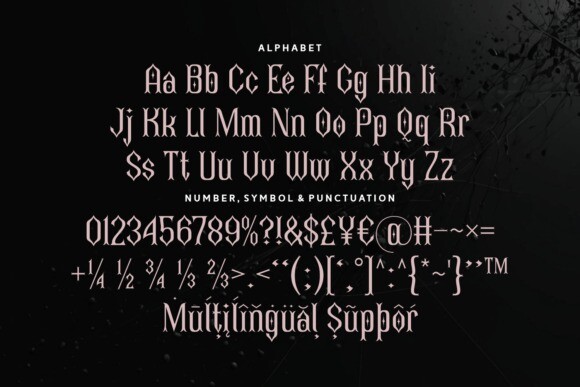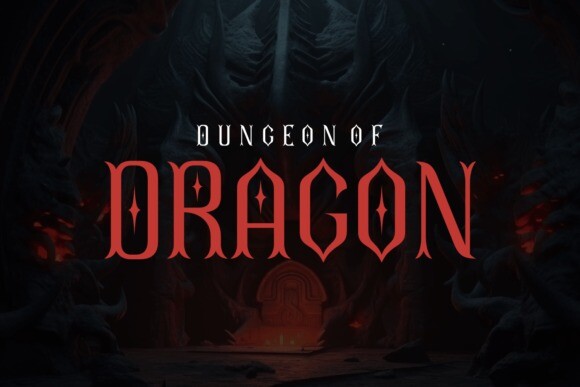
Demolish Font
Demolish Font is a striking blackletter font that incorporates small rhomb-shaped details into its design, adding a unique twist to the traditional medieval style. This font is bold, dramatic, and perfect for designs that seek to convey strength, tradition, and a touch of modern flair. Each letter is thick and well-defined, making it perfect for headlines, logos, or any design that requires a bold visual statement.